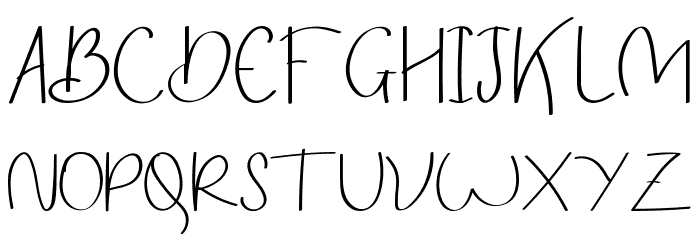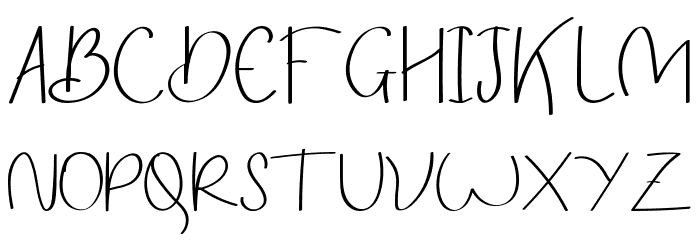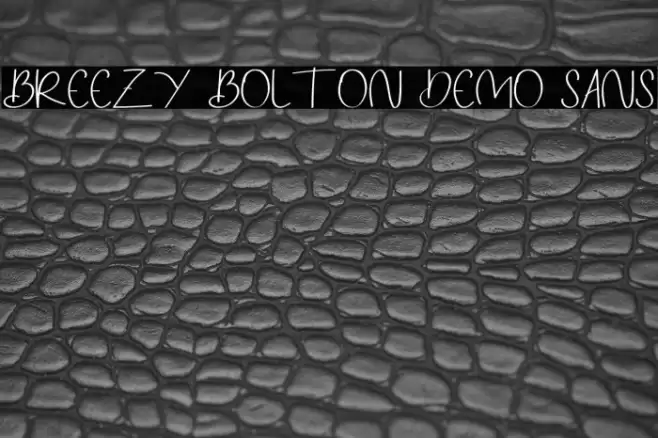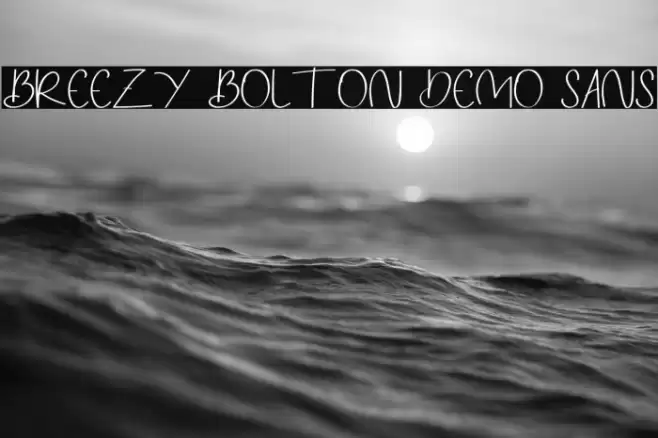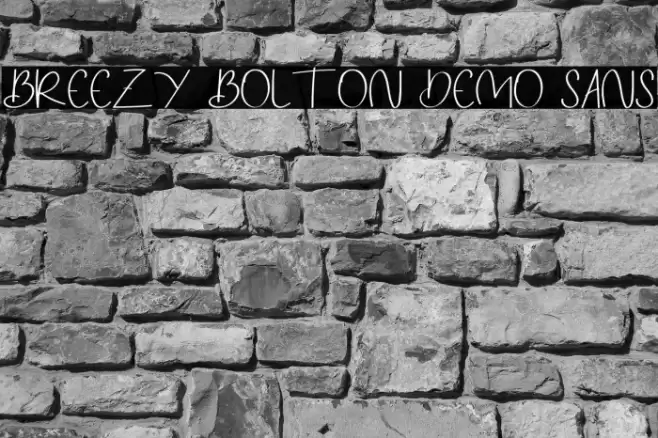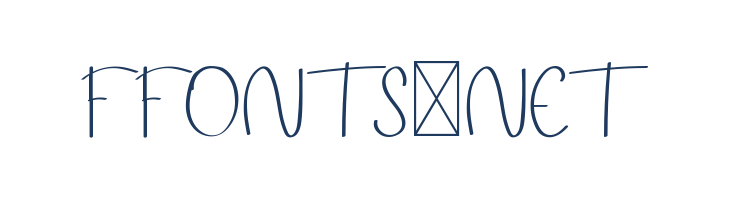
Breezy Bolton DEMO Sans Font
This font features a playful and whimsical design, characterized by its flowing, handwritten style. The letters are crafted with a sense of movement and fluidity, giving it a lively and dynamic appearance. The strokes are thin and consistent, contributing to a light and airy feel. The font maintains a casual elegance, making it suitable for creative and informal applications. Its unique character shapes, such as the looping 'Q' and the curvy 'S', add to its charm and distinctiveness. The overall design is approachable and friendly, making it ideal for projects that require a personal touch.
A playful, handwritten font with a whimsical and dynamic style.
- Proposed Projects: Greeting cards, invitations, children's books, and creative branding projects.
- Overall Style: Casual, Whimsical
- Use Case: Headlines, Creative projects, Personal branding